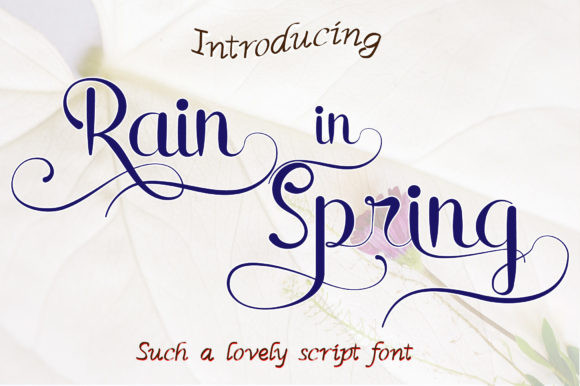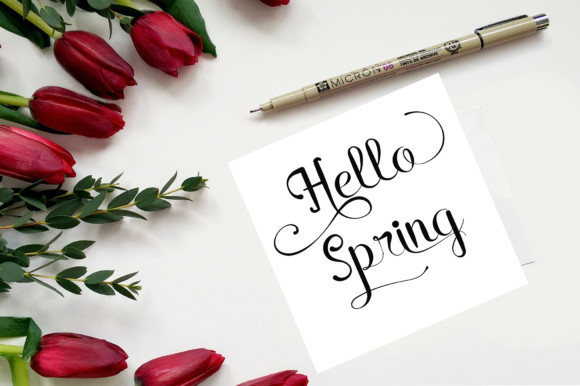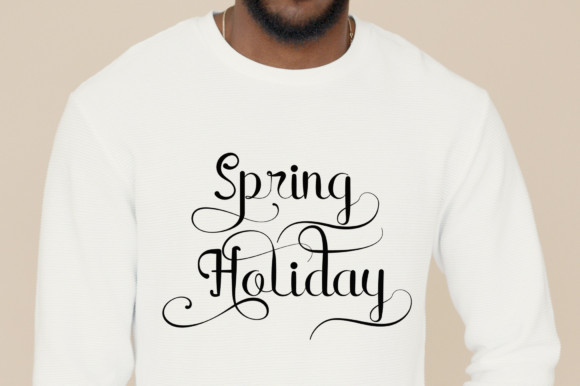
Rain in Spring Font
Rain in Spring is a stylish modern script font that is suitable for branding, signature, wedding invitation, promotion, product packaging, and other needs. This stunning handwritten font is a stylish homage to classic calligraphy. It will elevate a wide range of design projects to the highest level.